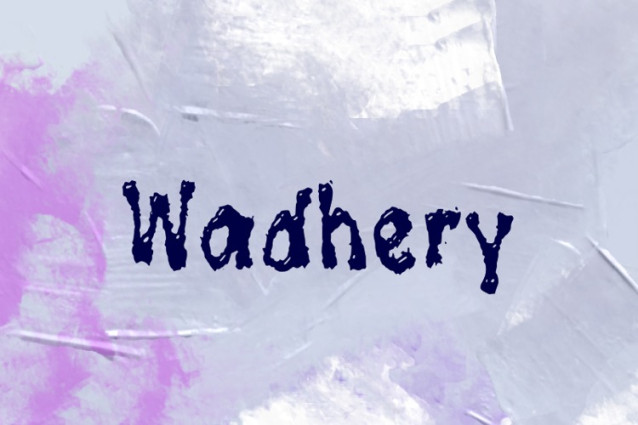
Wadhery Font
Wadhery Font, perfectly fit for branding, logo, wedding things, greeting cards, fashion, lookbook, marketing promotion, anytime you want to look fancy elegant but still casual.